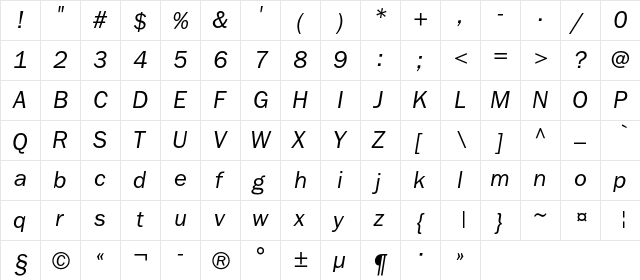
FranklinGothicBookC Italic Font Preview
FranklinGothicBookC Italic
Design Context for FranklinGothicBookC Typeface
FranklinGothicBookC has the quiet confidence of well-executed sans-serif typography: versatile, unobtrusive, and dependable at any size. The dynamic lean of this cut emphasises speed and emphasis in any layout.
Font Pairing: Works well alongside a characterful serif or display font that can carry the expressive load while FranklinGothicBookC handles the functional copy.
Pro Tip: Use FranklinGothicBookC for UI labels, navigation, and short-form body copy where clean legibility is the priority.